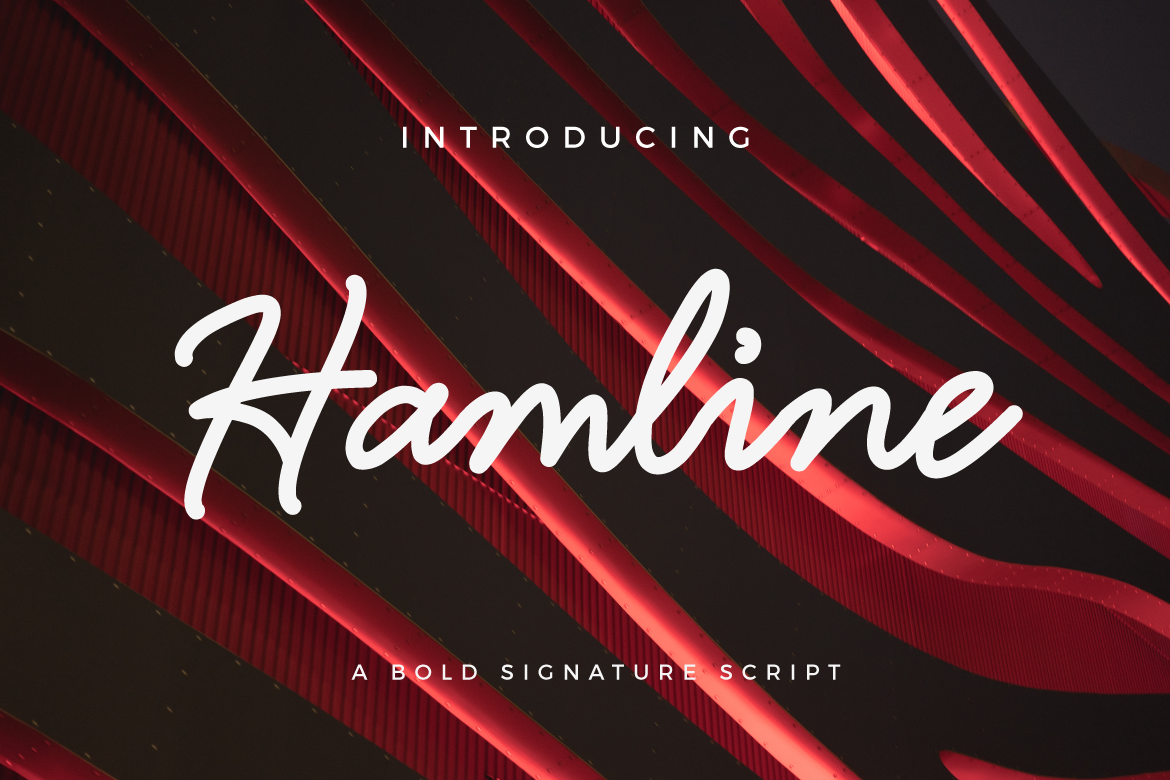
Hamline is a bold signature script font. Hamline font is suitable for any design needs, modern invitation design, branding, blog design, modern advertising design, invitation, Art Quote, Home decor, Book/Cover Title, Invitation, special events, birthday, custom mug, pillow, t-shirts, any handwritting signature style needs and more. Hamline font comes with upper and lowercase Standard Characters, Punctuation, Numerals. Thank you for your purchase! and hope you're having fun with Hamline ! Happy creating! Typia Nesia Studio Malang - Indonesia